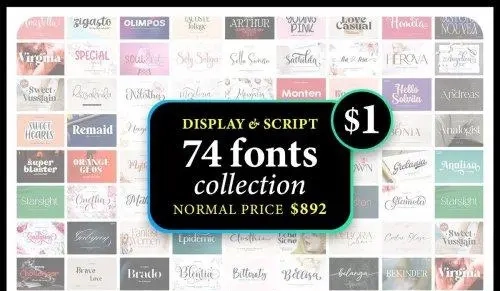
Display & Script Font Collection
Introducing the Display & Script Font Collection, a carefully curated selection of unique fonts designed to elevate your creative projects. This collection features a variety of display and script styles, perfect for adding a distinctive touch to your designs.
• Multiple font styles including elegant scripts and bold display fonts.
• Various weights to suit different design needs.
• High-quality typography suitable for both digital and print applications.
• Ideal for branding, logos, invitations, and promotional materials.
• Pair script fonts with simpler display fonts for a balanced look.
• Experiment with different weights to achieve the desired impact in your designs.